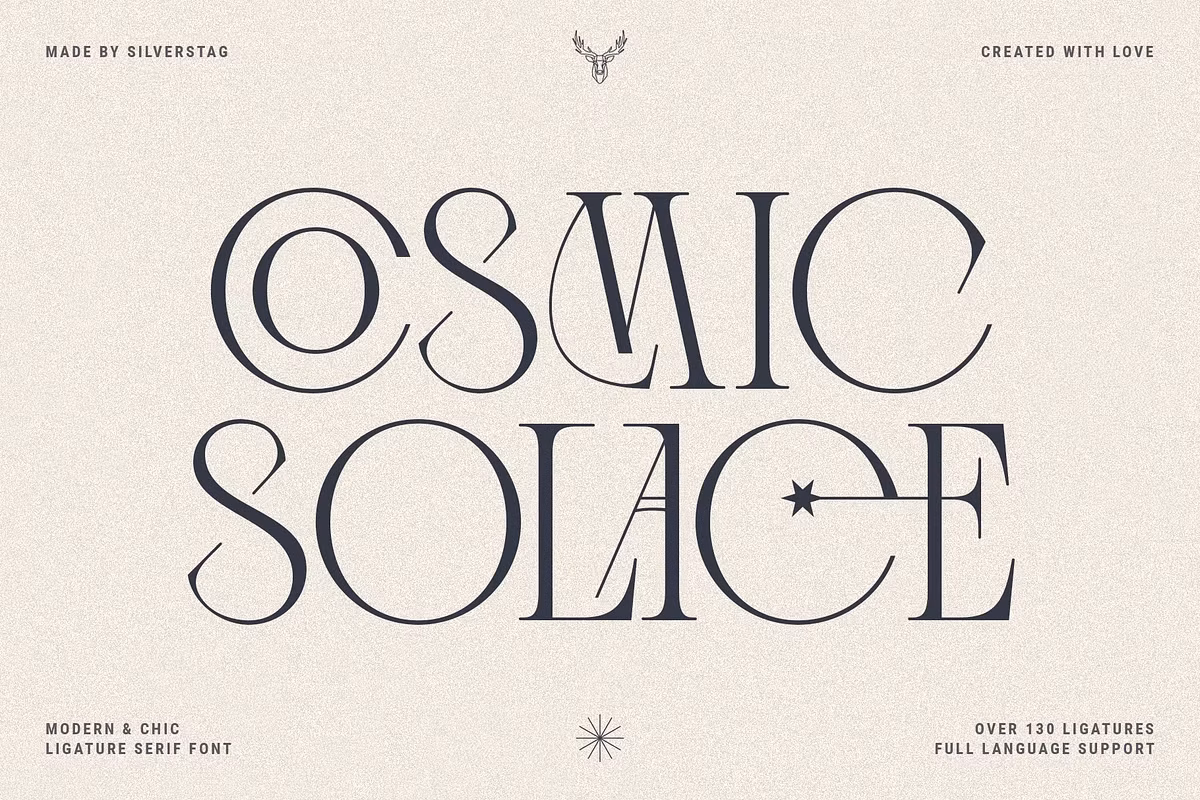
Cosmic Solace – Ligature Serif Font Free Download is a sophisticated and unique serif typeface that combines modern elegance with intricate ligatures, perfect for creative and high-end design projects. With its sharp serifs, delicate curves, and artistic ligatures, this font is ideal for branding, editorial design, luxury packaging, and high-profile event invitations.
Cosmic Solace stands out due to its ligature details, adding a stylish and refined touch to your typography. This font is well-suited for large headings, logos, wedding stationery, and other projects where you want the design to feel elevated and contemporary.
The font includes uppercase and lowercase letters, numerals, punctuation, and multilingual support, with special ligatures that help enhance the overall look and flow of the design.